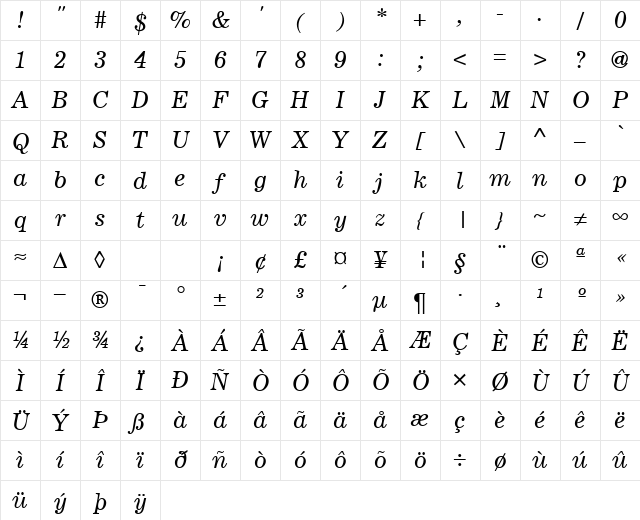
Complete Corsair RegularItalic glyph index. Displaying only characters natively supported by Corsair RegularItalic font.
Corsair is a composed and adaptable typeface that performs quietly and consistently across a wide range of design contexts. The slanted form adds forward momentum and visual energy.
Pro Tip: Use Corsair for emphasis, pull quotes, and subheadings where its slanted energy can add rhythm to the layout.